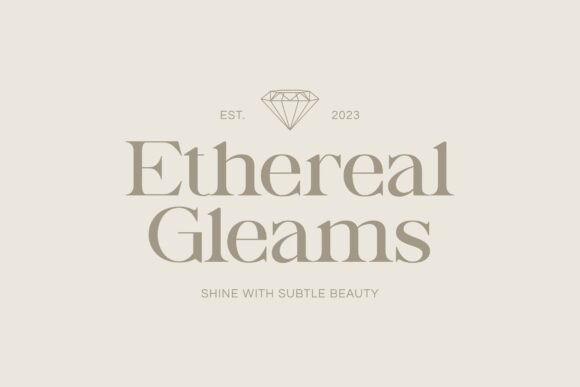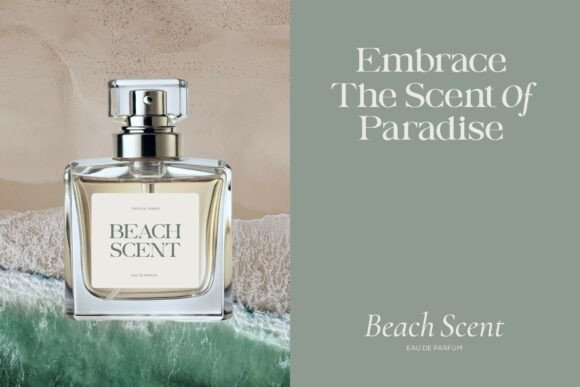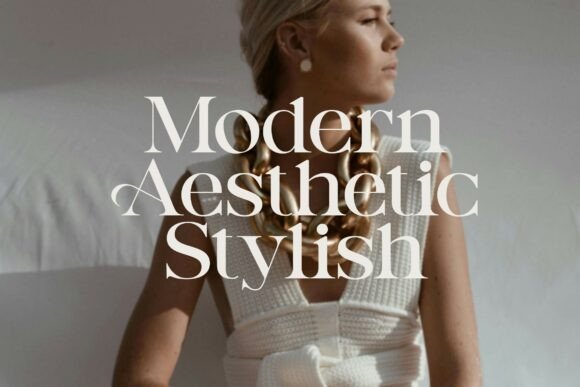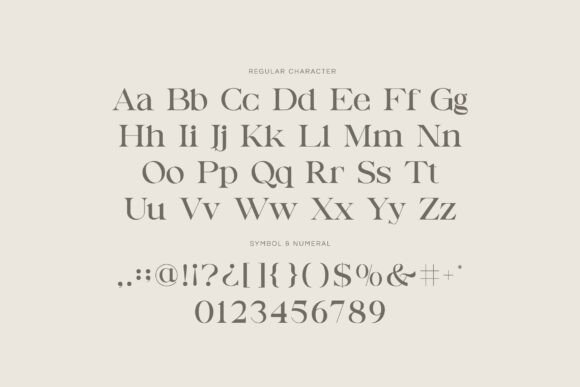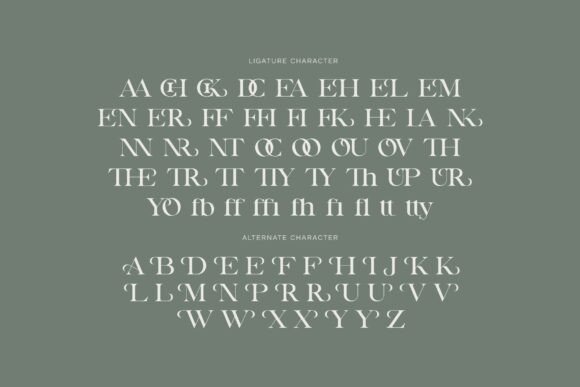
Introduction to Misty Voguel Font
Imagine you’re brainstorming ideas for a luxury product launch, and the perfect visual element is eluding you. You’re scrolling through design resources, searching for that one font that captures the essence of high-end sophistication. Suddenly, you stumble upon the Misty Voguel Font – a breathtaking serif display font that effortlessly combines vintage charm with modern elegance.
As a designer, you understand the importance of a well-crafted font in bringing your creative project to life. With its clean lines, beautiful details, and transparent background, Misty Voguel Font is the perfect addition to your design arsenal. Its PUA encoding ensures seamless access to all glyphs, swashes, and alternate characters, making it a valuable resource for designers seeking to create high-quality, memorable designs.
This captivating font is suitable for a wide range of applications, from fashion projects and headlines to posters, packagings, and editorial designs. Whether you’re crafting a striking wedding invitation or branding a luxury product, Misty Voguel Font is an excellent choice that’s sure to leave a lasting impression.
Key Features of Misty Voguel Font
- High-quality design resource ideal for creative projects, offering a unique and elegant style.
Honest Review: Misty Voguel Font
I recently stumbled upon the Misty Voguel Font while searching for a design resource to elevate my latest creative project. I was impressed by its high-quality design and versatility.
What works well is its unique, dreamy aesthetic that adds a touch of whimsy to any design. The font is perfect for those looking for a romantic or mystical vibe in their creative project. The Misty Voguel Font also features a transparent background, making it easy to layer and customize.
Here are some of its key features:
- High-quality design suitable for a variety of creative projects
- Unique, dreamy aesthetic perfect for romantic or mystical themes
- Transparent background for easy layering and customization
One limitation of the Misty Voguel Font is that it may not be suitable for formal or professional designs, as it has a more playful and artistic feel.
Overall, I was pleased with the Misty Voguel Font and would recommend it to designers looking for a creative and high-quality design resource.
The Misty Voguel Font is a high-quality design resource that offers a unique and creative touch to any project. With its transparent background, it’s perfect for adding a subtle yet elegant look to your designs.